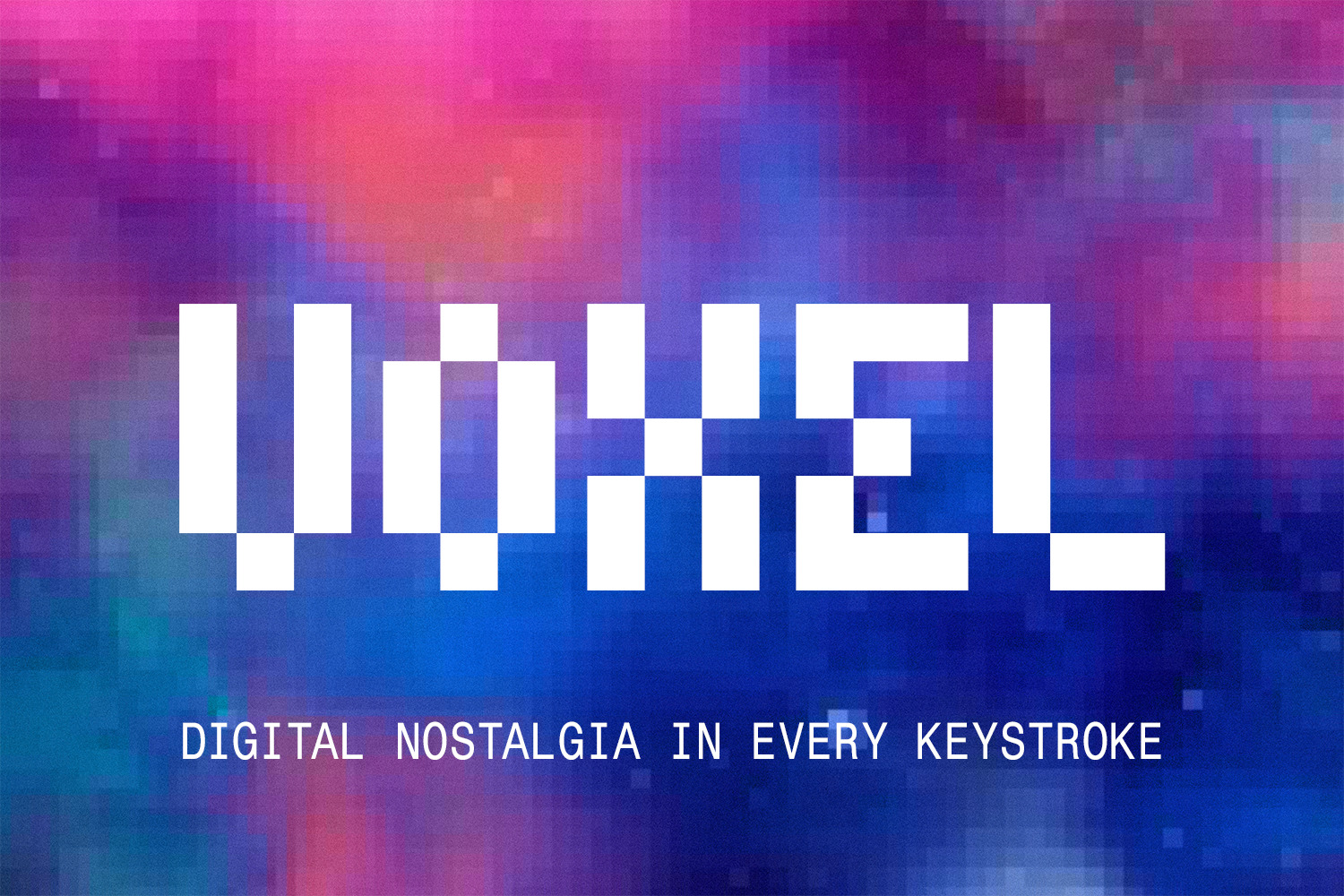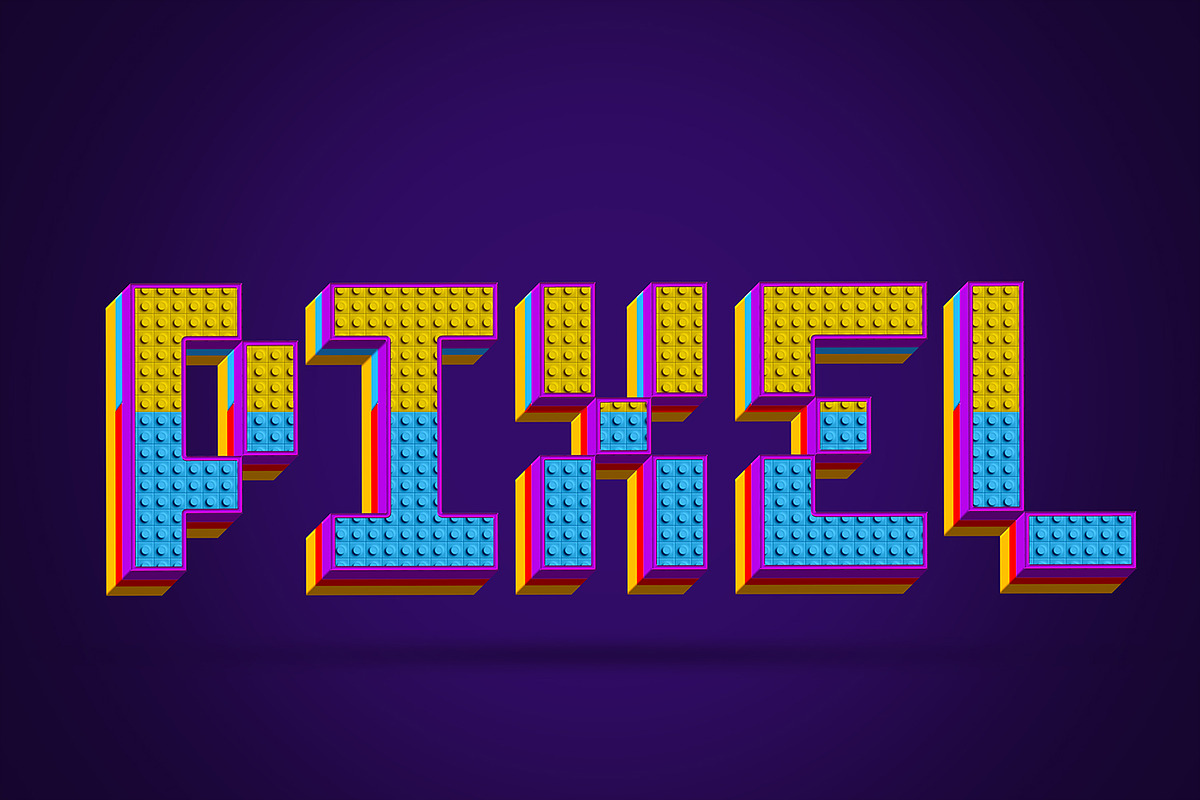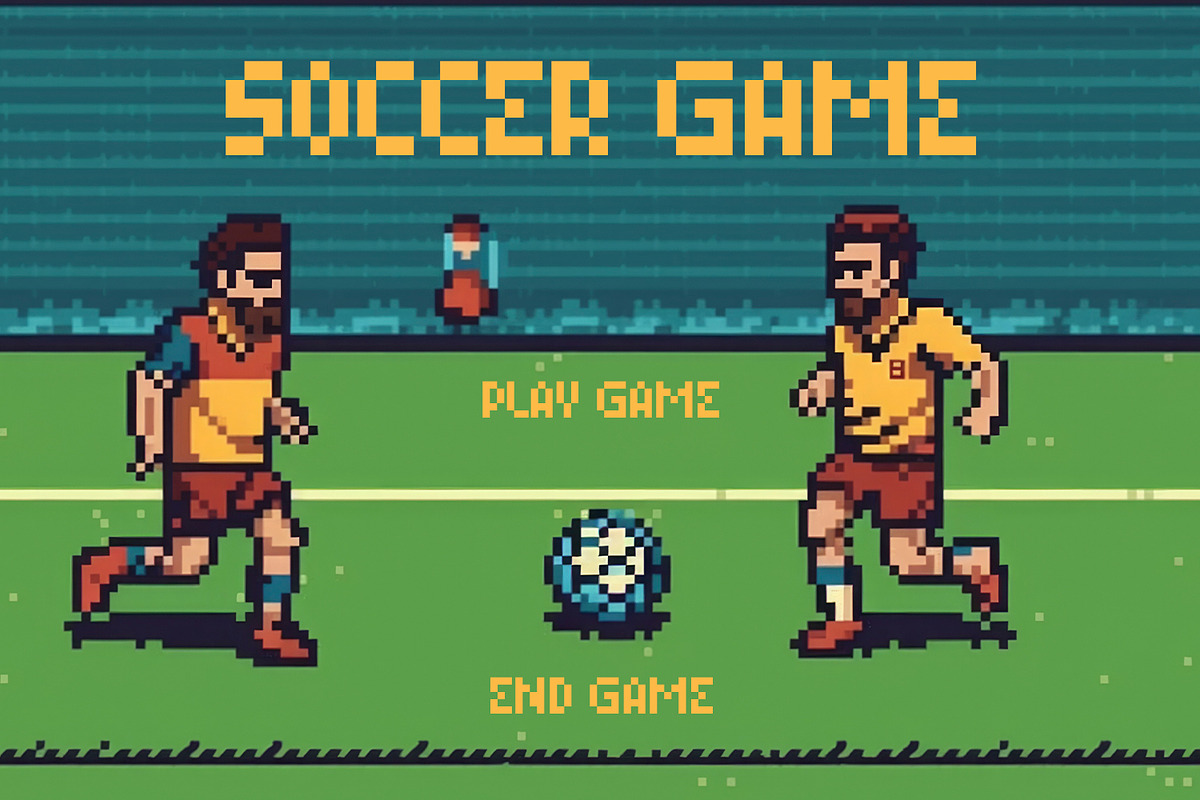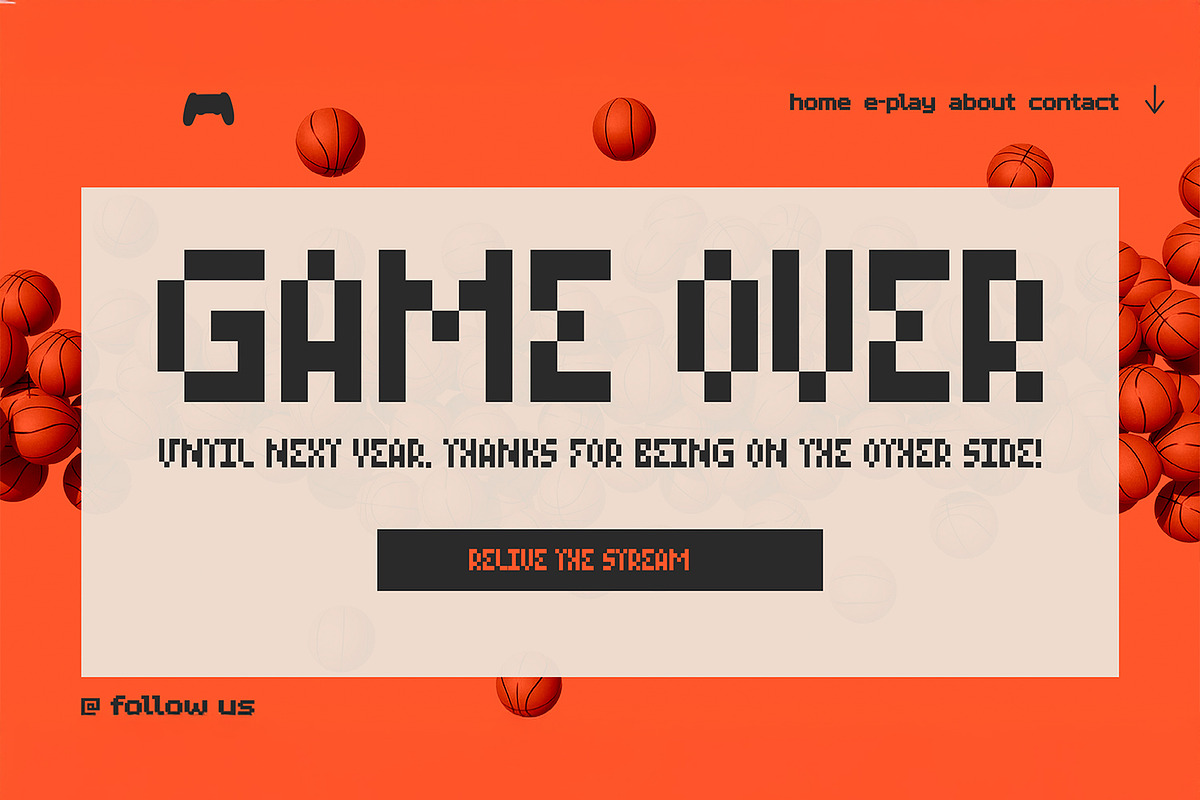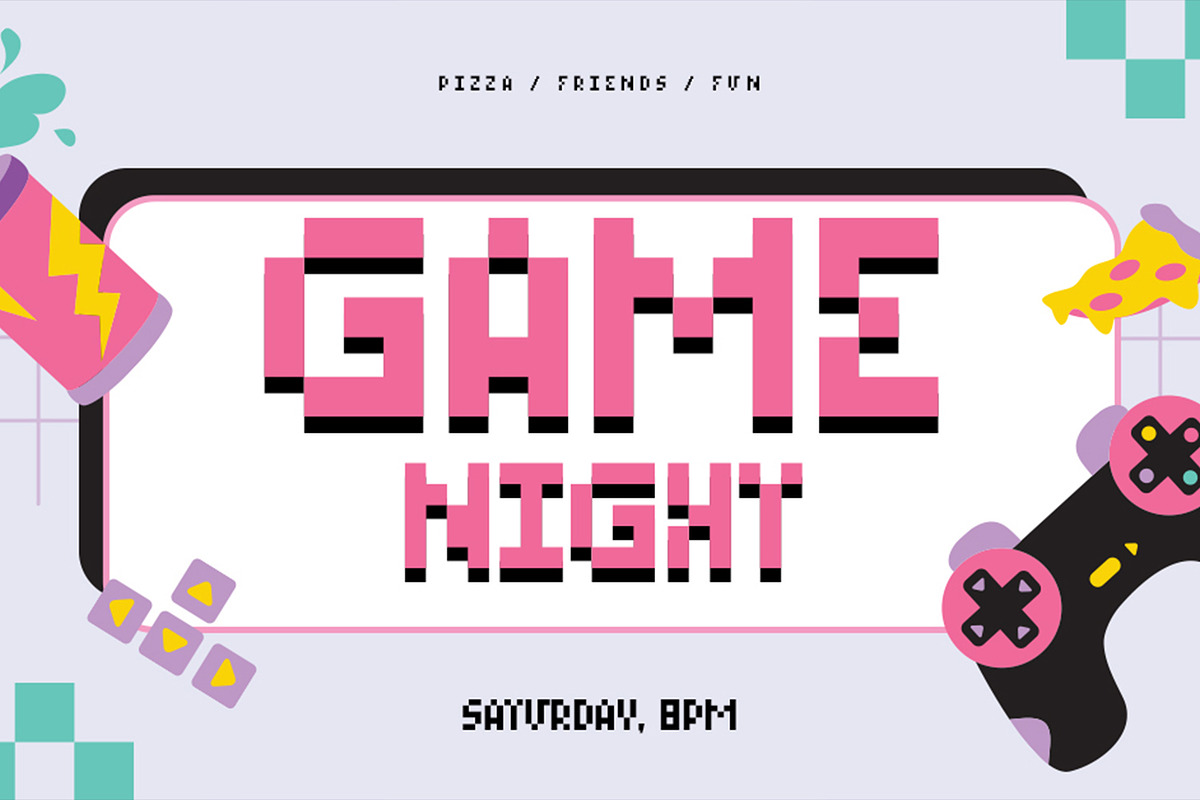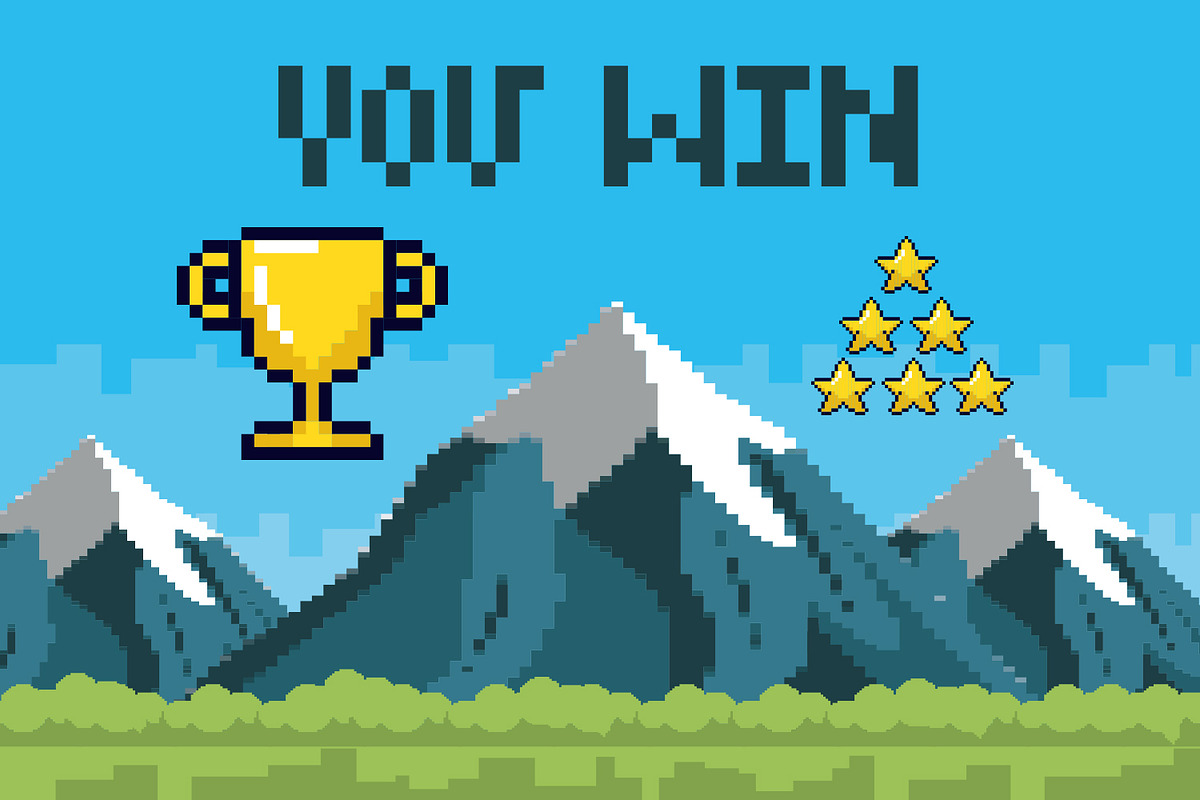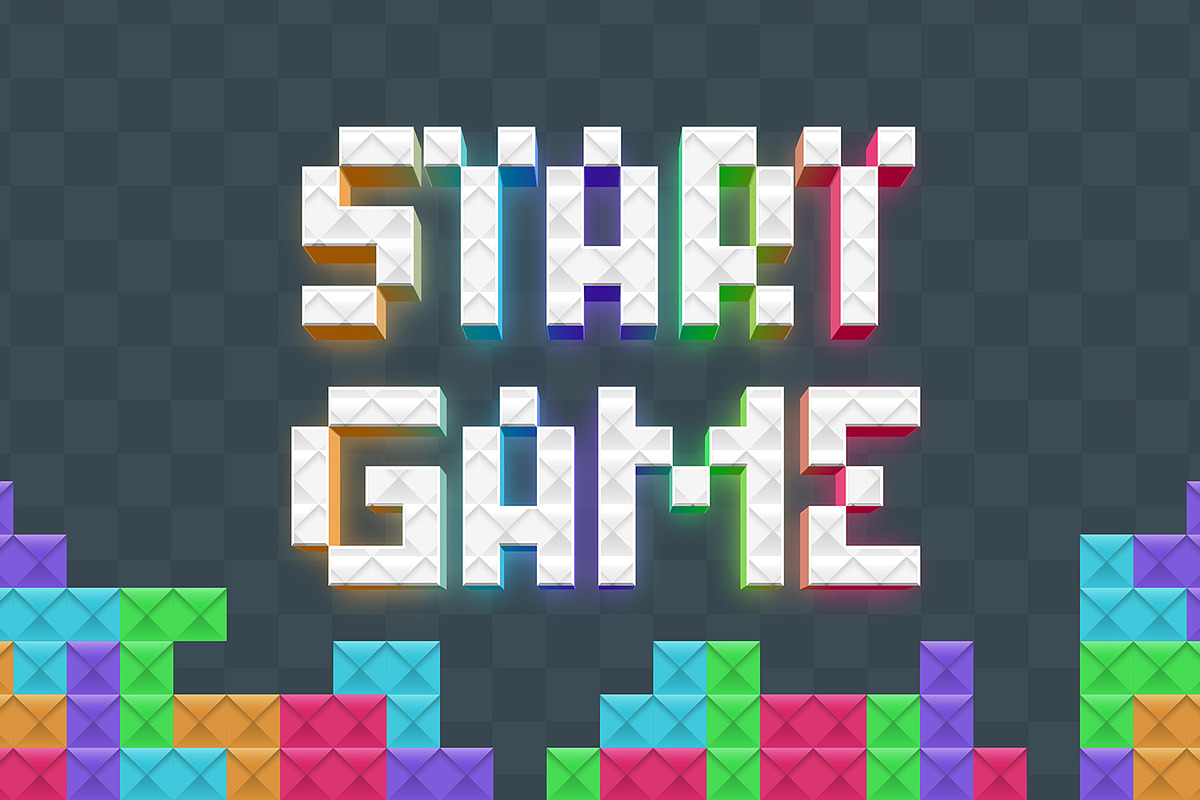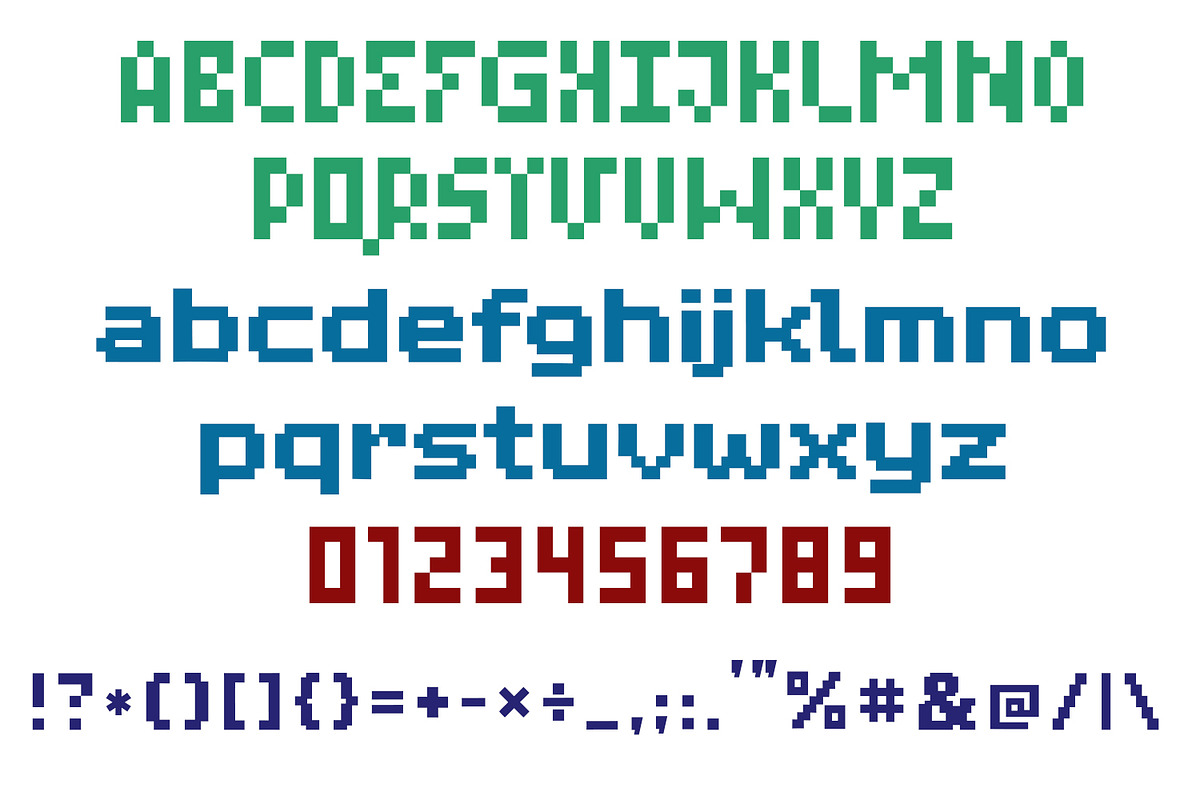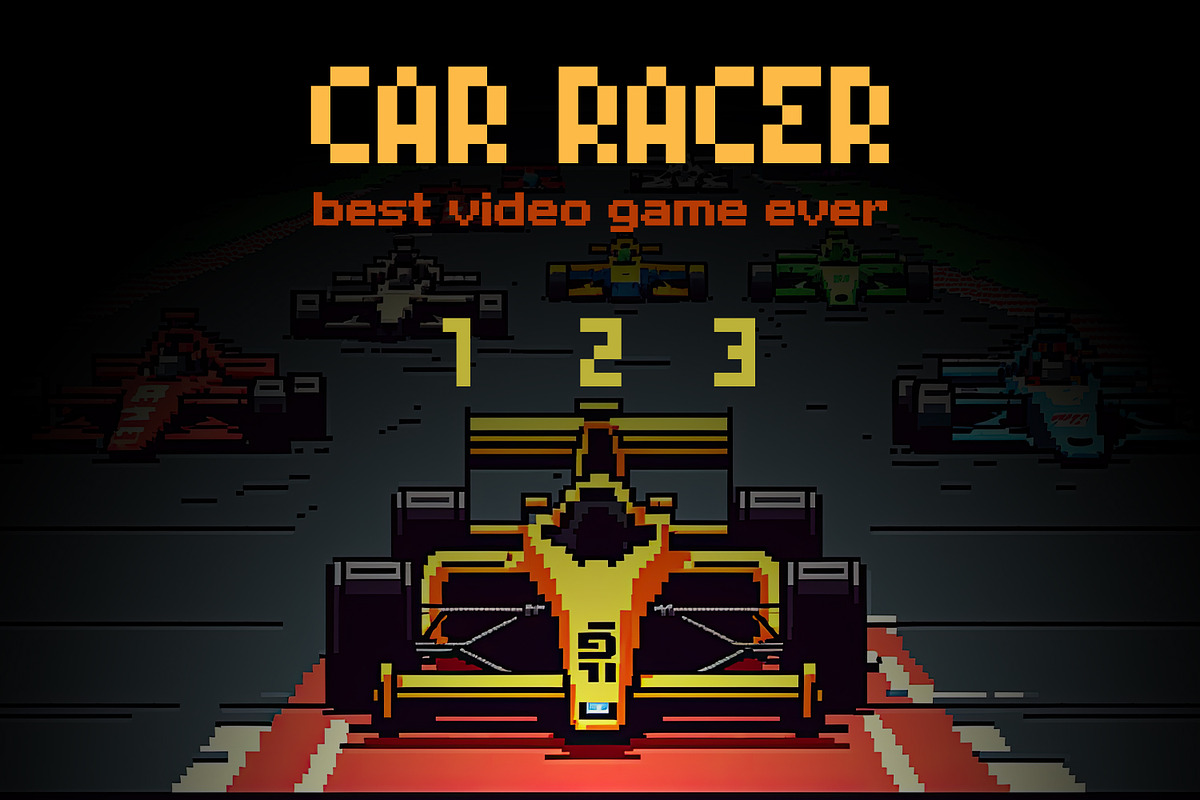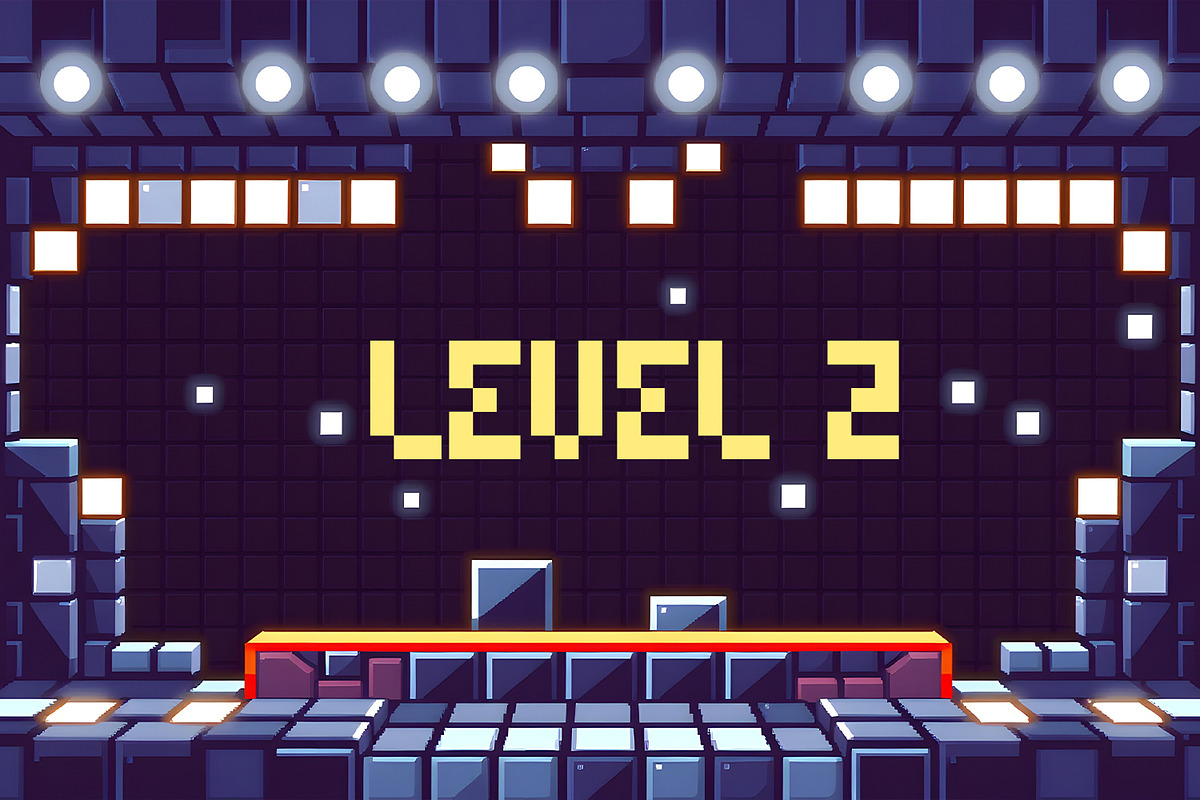
Voxel - Classic Arcade Gaming Font
Introducing Voxel, a bold and nostalgic 8-bit pixel font inspired by classic arcade games and vintage digital screens. Featuring a complete character set including uppercase, lowercase, numbers, and special symbols, this blocky typeface is perfectly crafted for modern digital art. Whether you are designing a retro video game interface, tech-themed posters, streaming overlays, or cyberpunk streetwear, Voxel delivers an authentic, pixel-perfect aesthetic to elevate your creative projects.